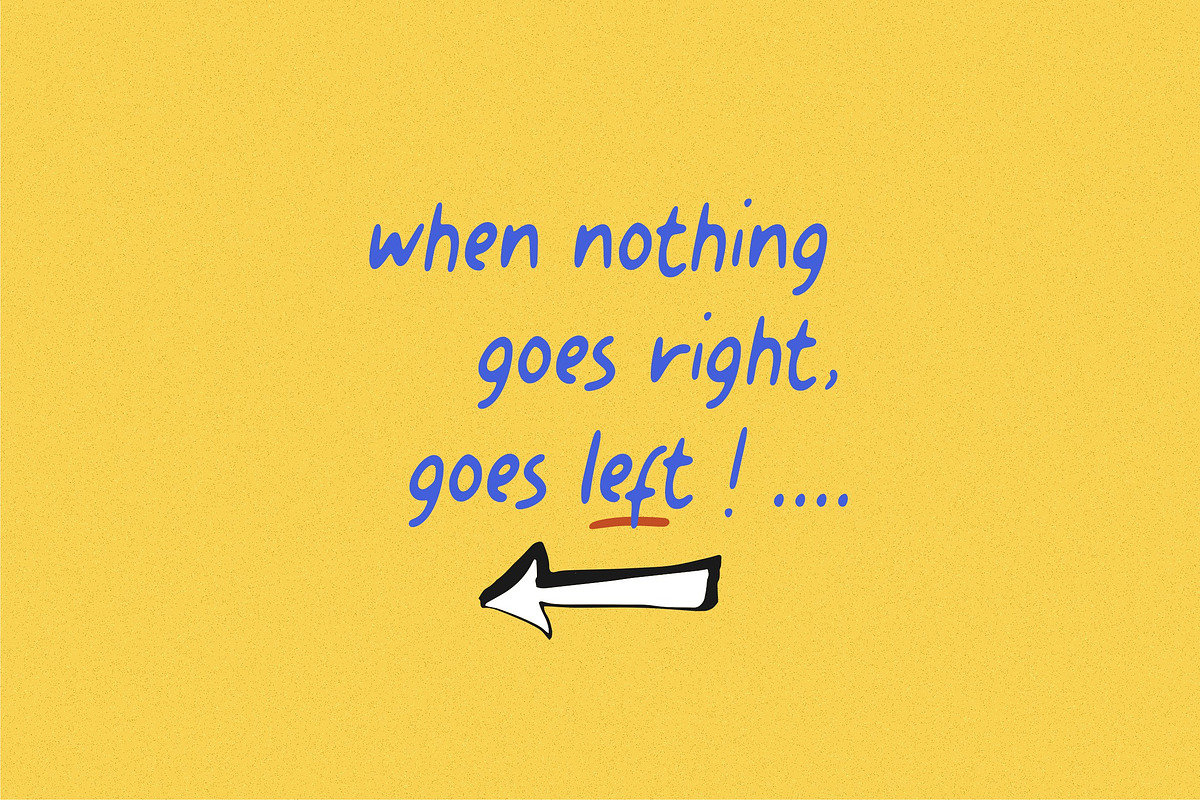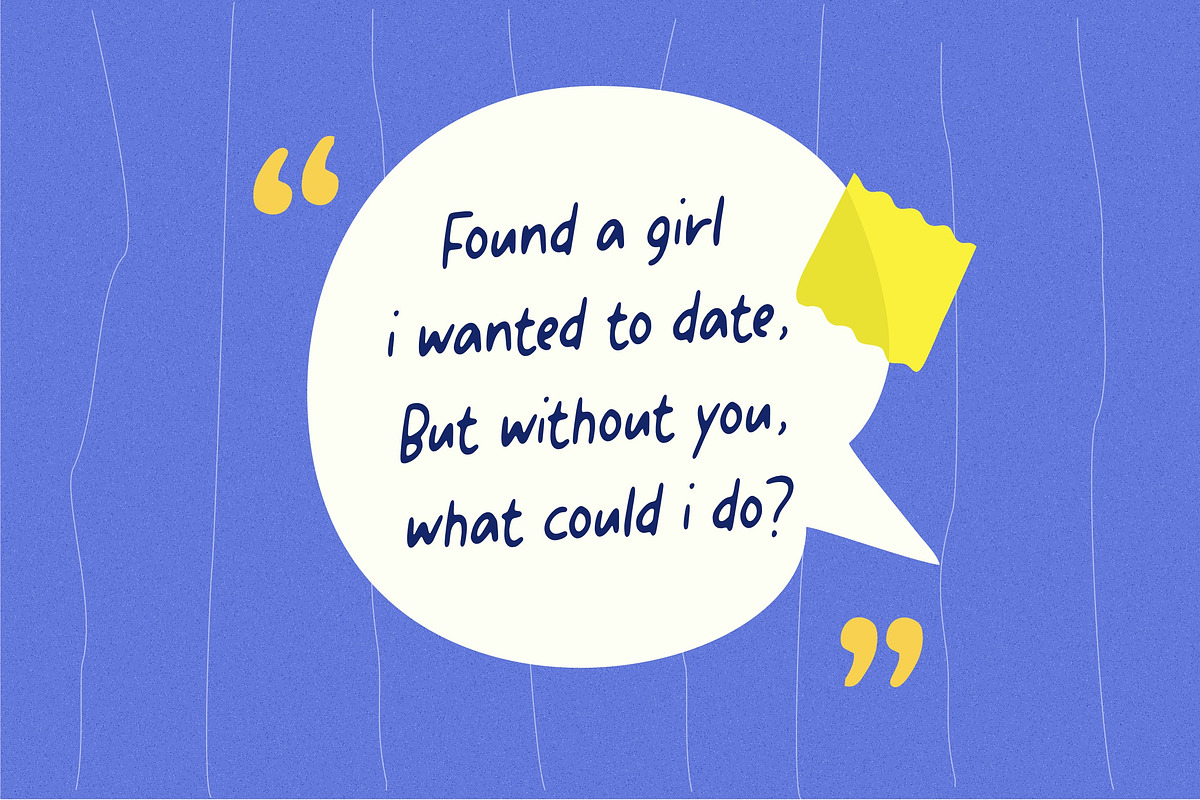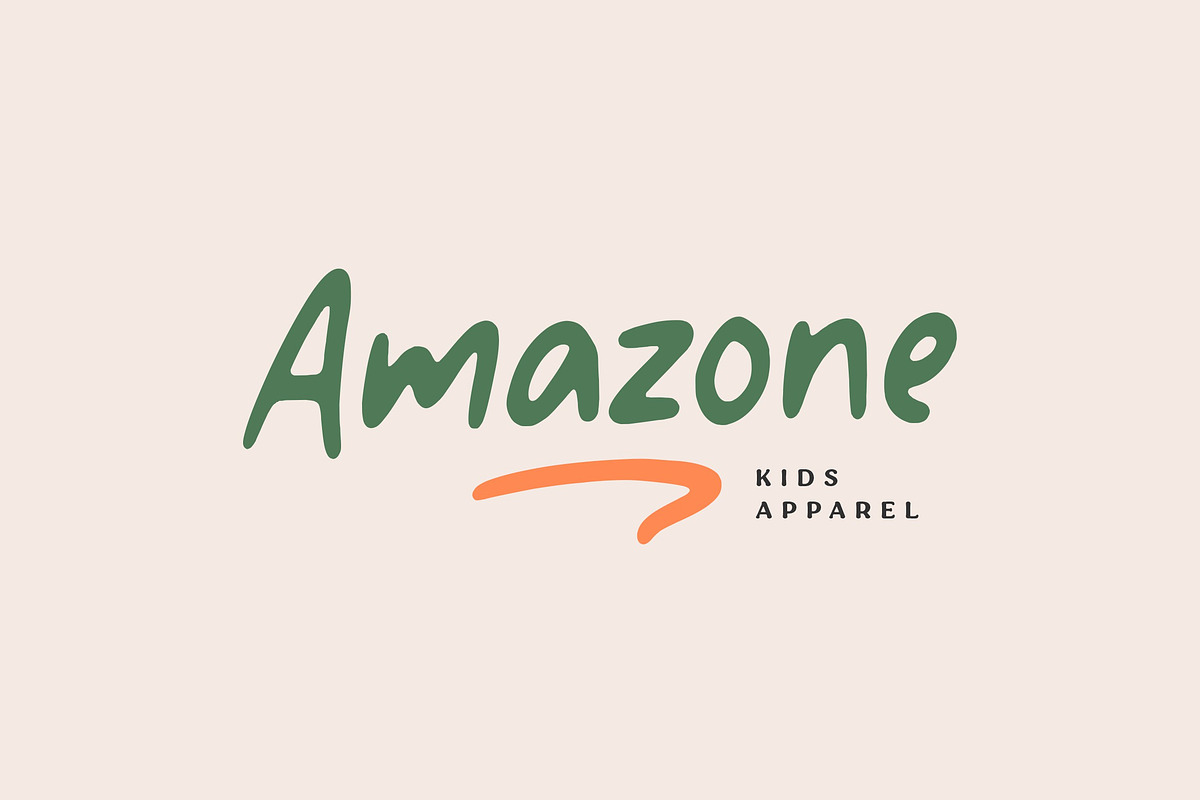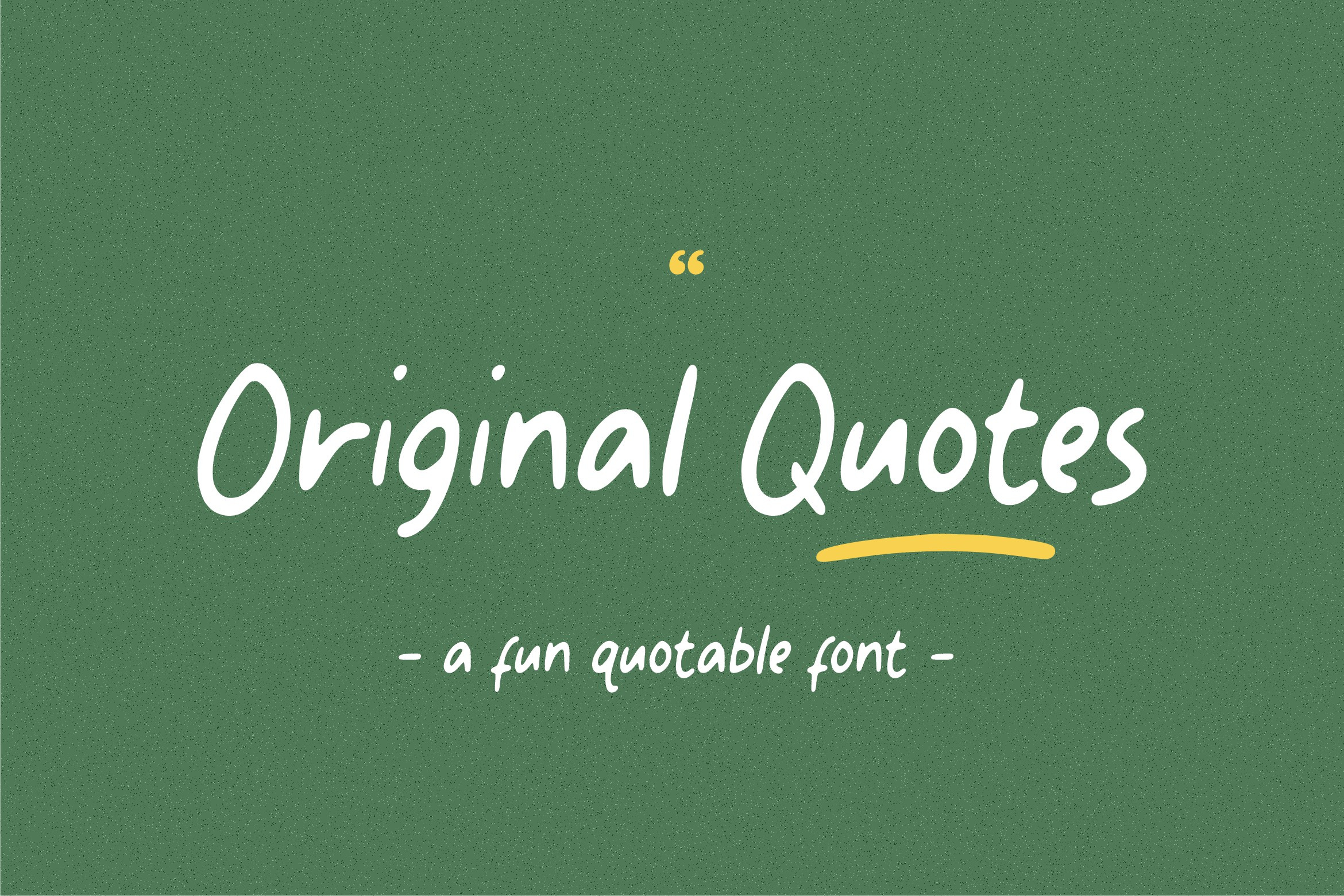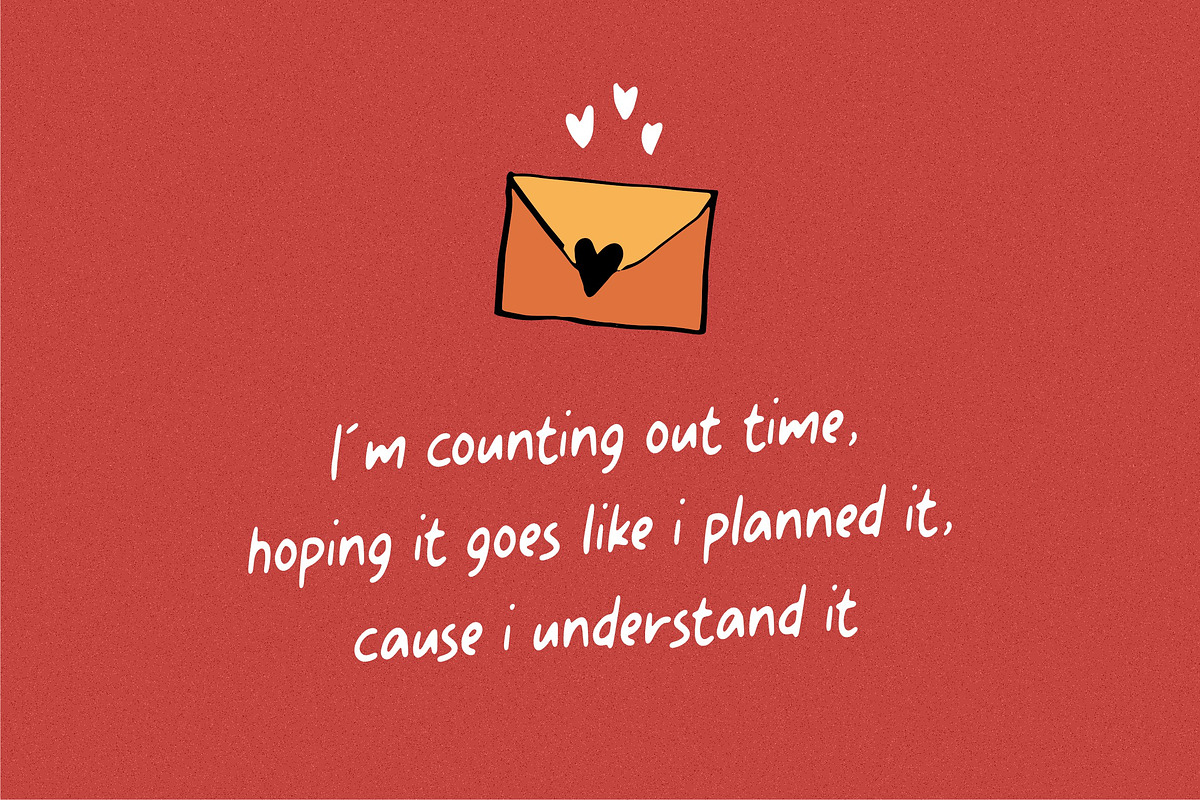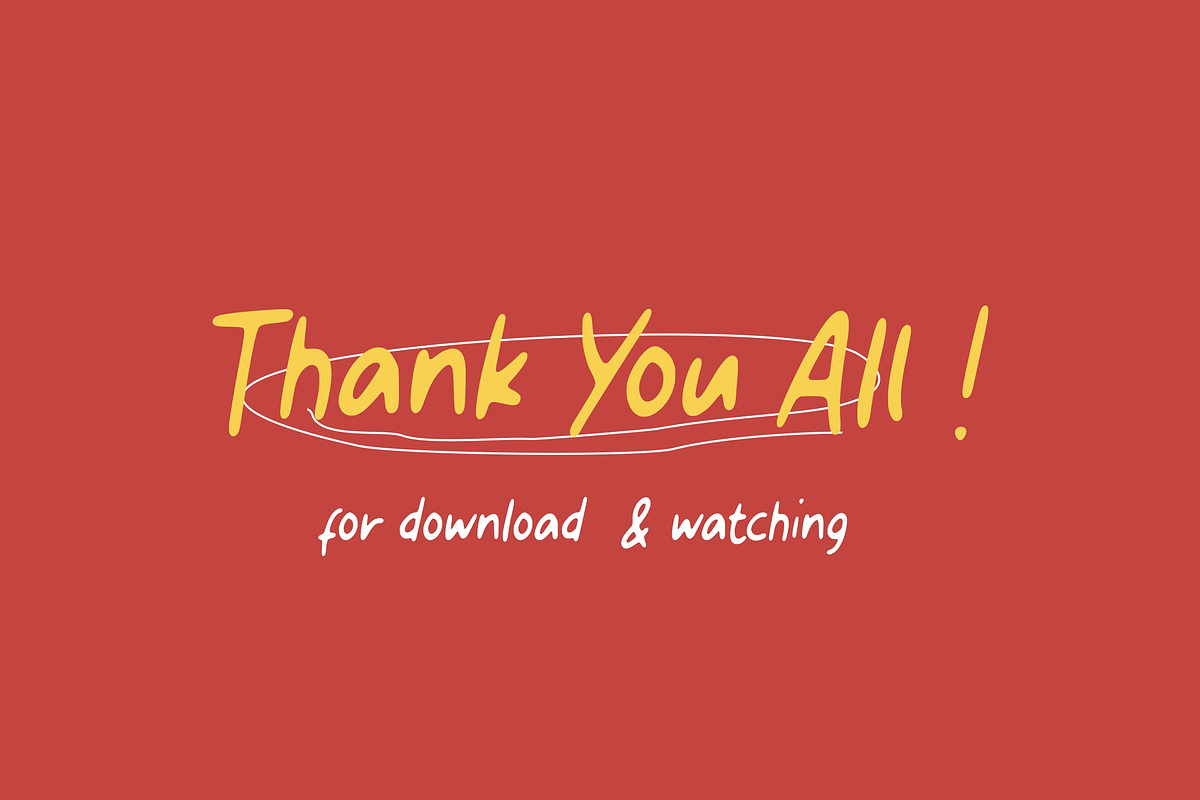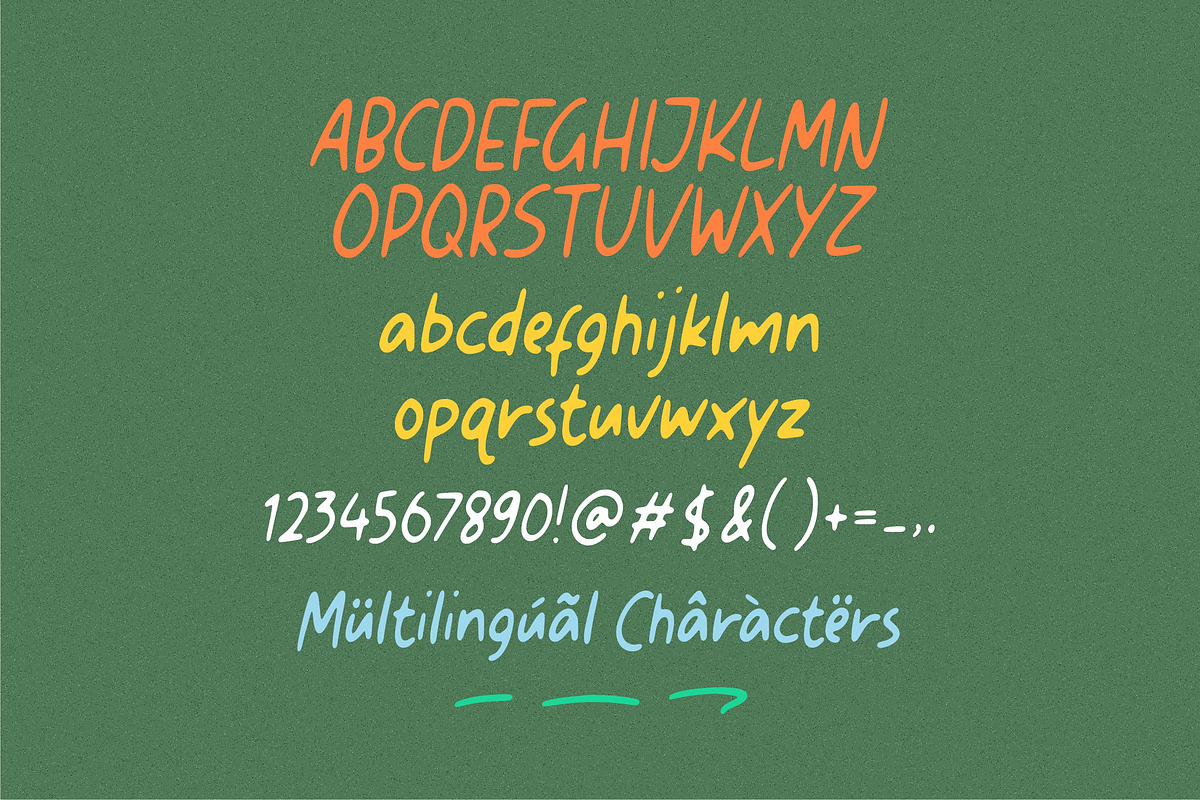
Original Quotes - Fun Quotable Font
Proudly Present, Original Quotes Font
Original Quotes is a Fun Quotable Font. The font looks casual and playful. It's perfect for handwritten notes, sweet greeting cards, beautiful quotes, and stand-out branding as well. The set contains additional items for your design